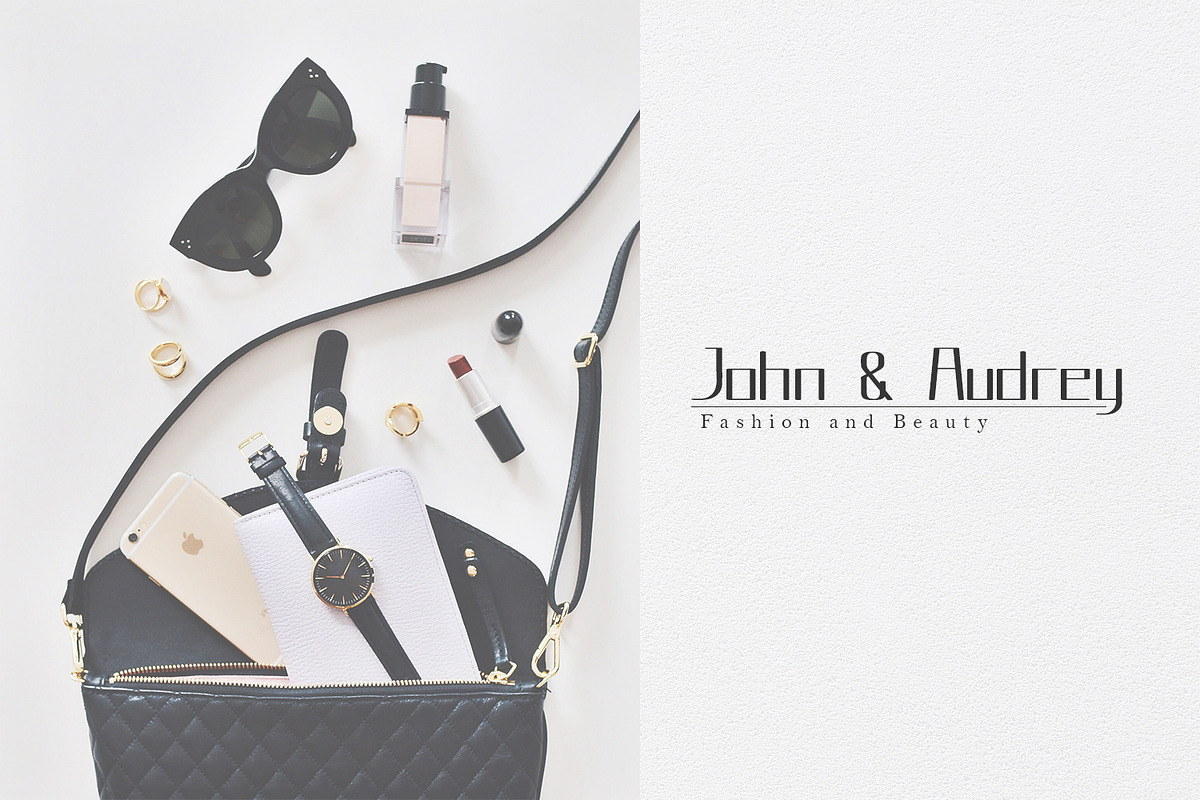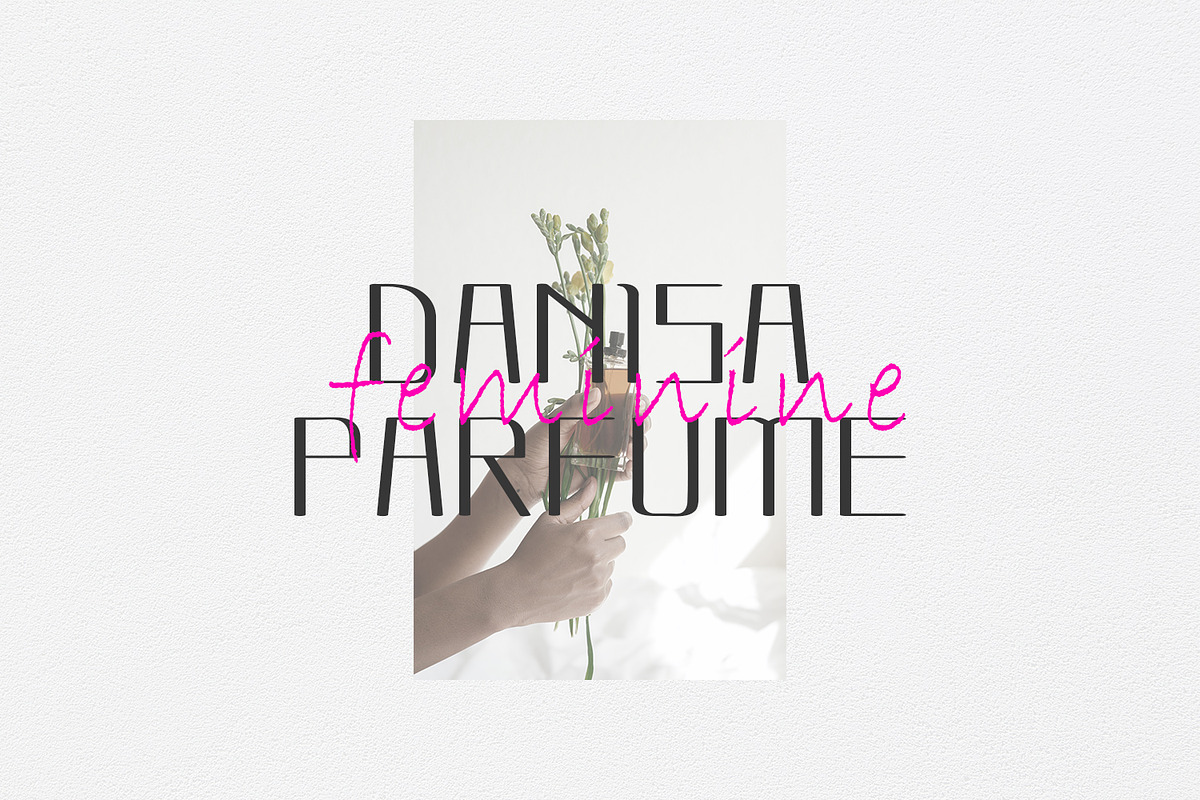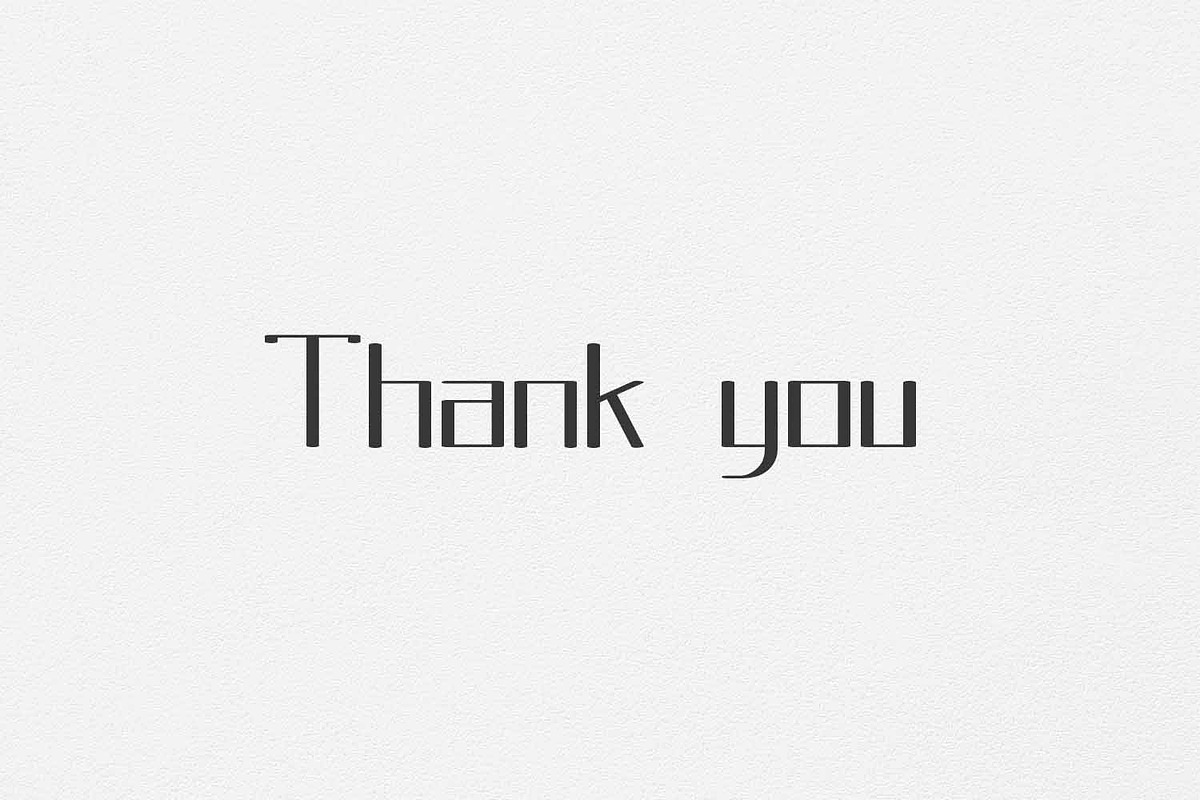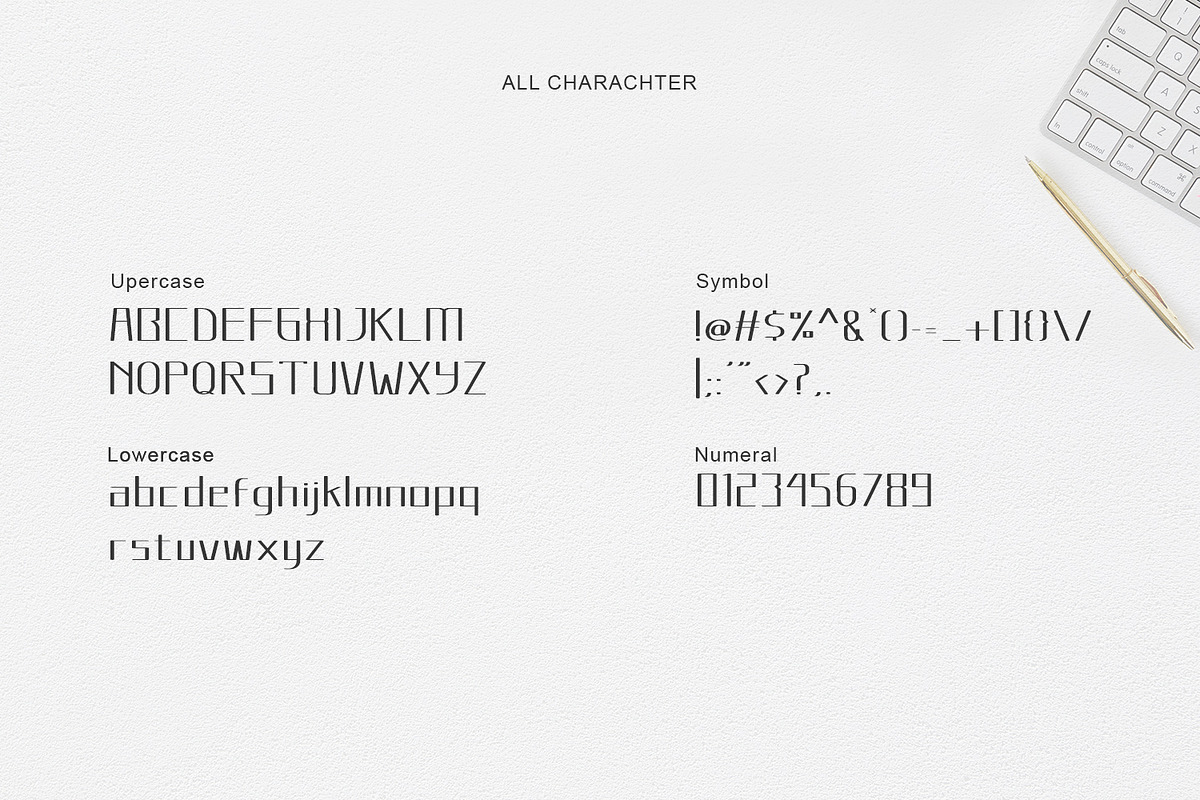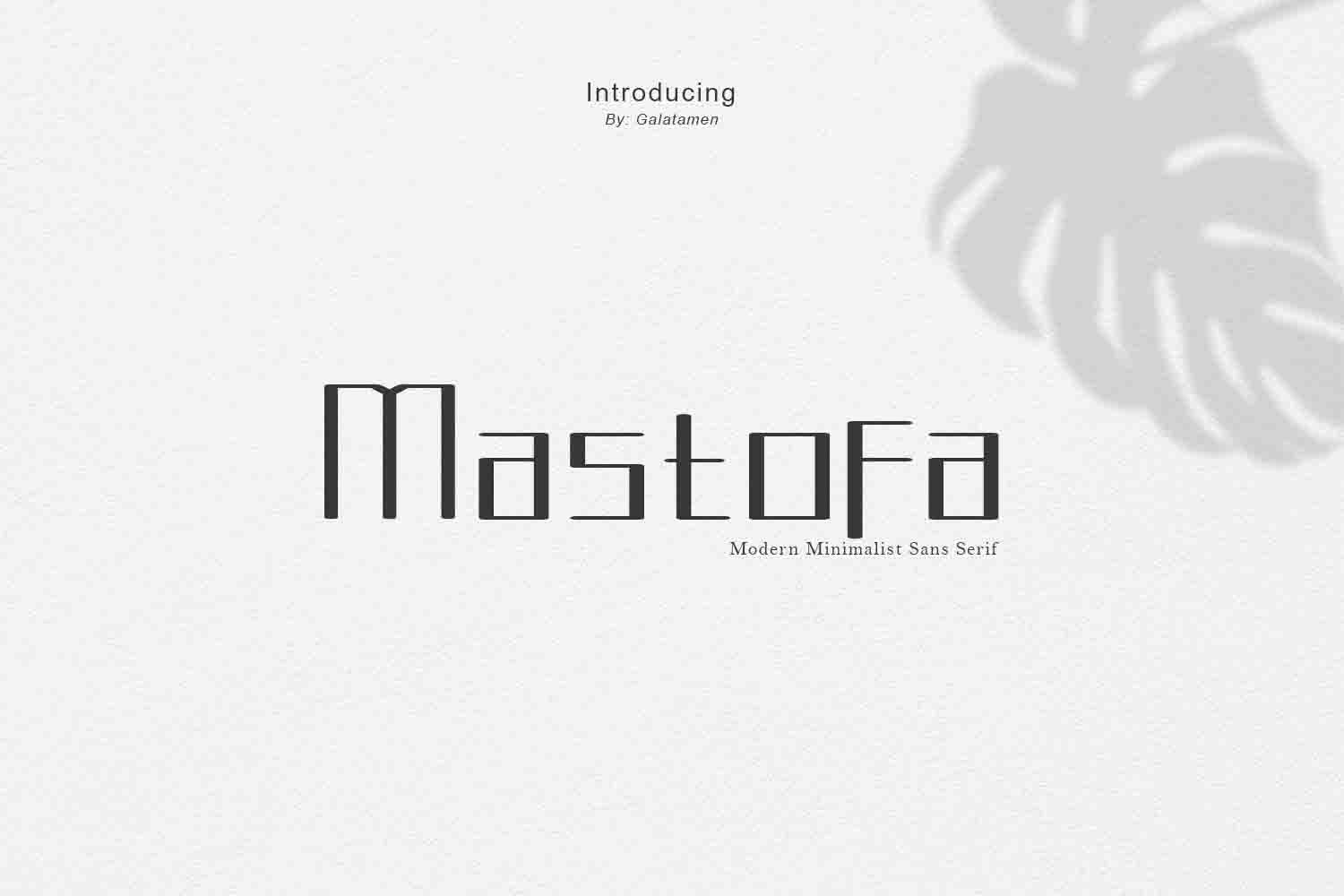
Mastofa | Modern and Minimalist Font
Mastofa is a versatile and stylish sans serif font that features an elegant, modern, and minimalist design. This font can be effectively utilized for a wide range of applications including logos, wedding invitations, headings, t-shirts, letterhead, signage, labels, news, posters, badges, and many other projects, making it a great choice for designers looking for a versatile and high-quality typeface.